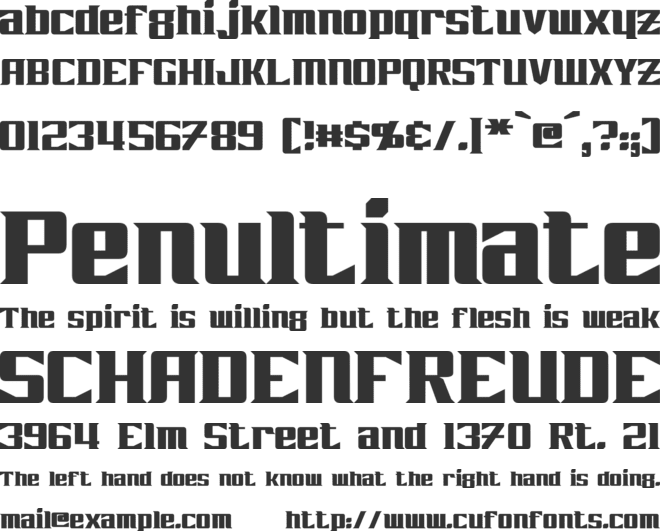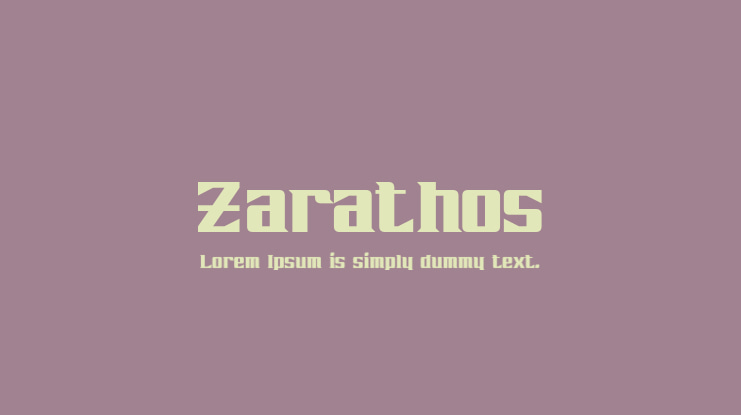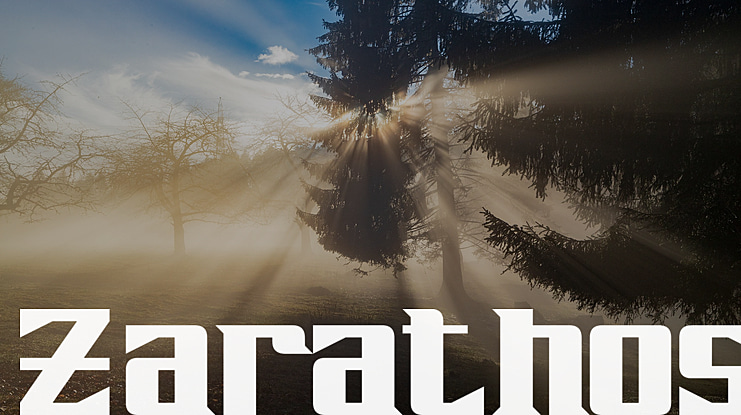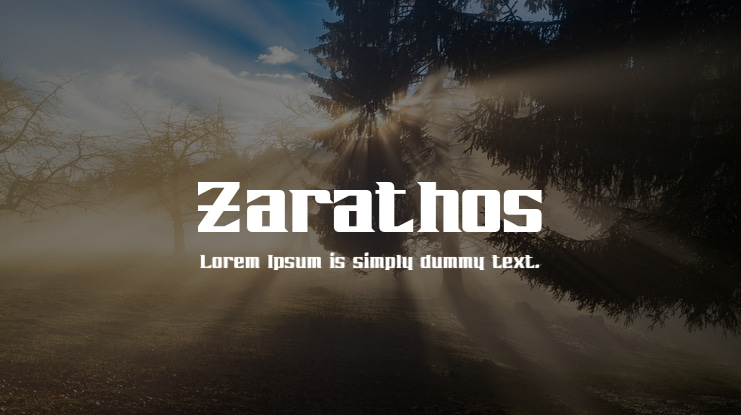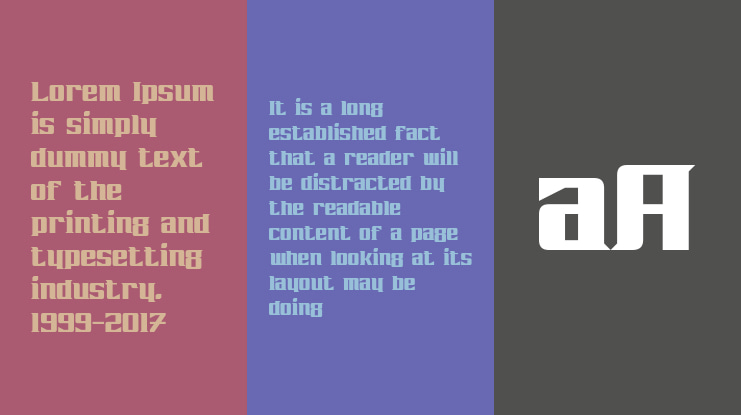
Zarathos Font Family
Neale Davidson
Based loosely on the titles for the Ghost Rider movie series. Includes full alphabet, "small-caps", accent characters, punctuation, and Euro. Includes italic version.